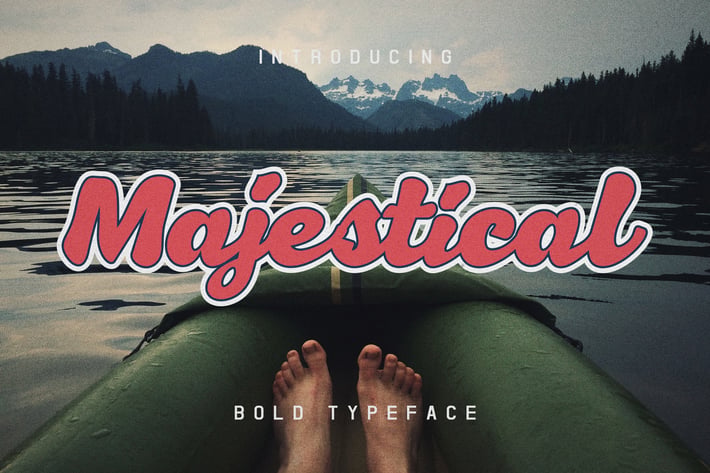
Majestical Bold Font
Majestical Bold Font that contain lowercase, uppercase, symbol, and also support multi language. There’s a lot ligatures in this font. Majestical Bold Font also comes with ligatures, stylistic alternates and many more. this font suitable for fashion, branding, catalog, retro design and other design what you want.